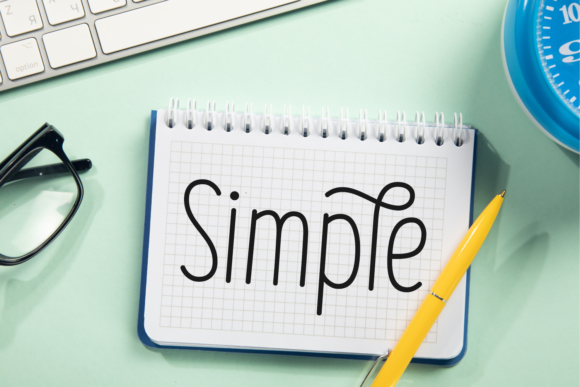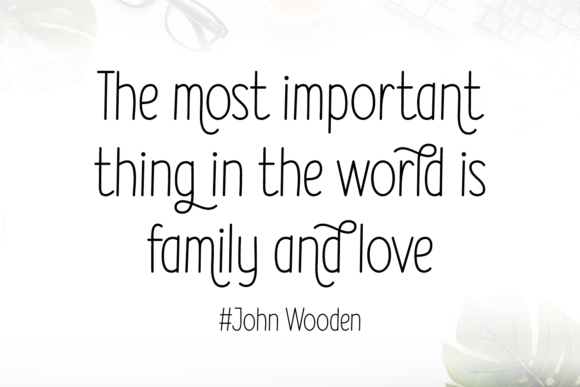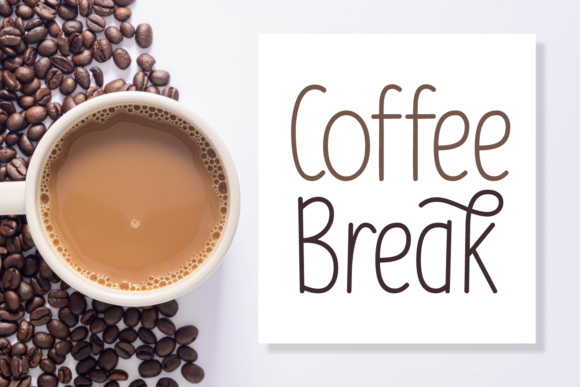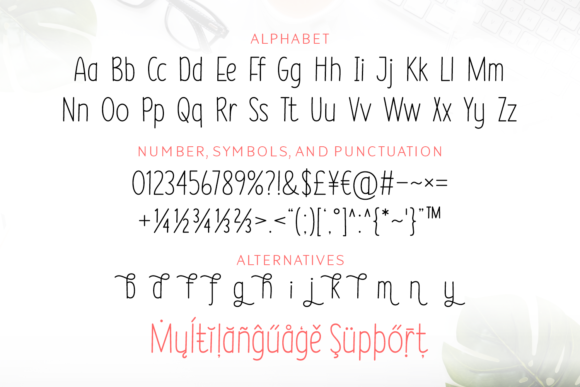
Introduction to Smooth of Simplicity Font
Smooth of Simplicity is a minimalist handwritten font with an elegant touch.
This typeface is ideal for design, logo design, blog graphics, style quotes, wedding stationery, art prints, additional design, packaging, social media, magazines, fashion, creative branding, editorial design, and web designing .
Key Features of Smooth of Simplicity Font